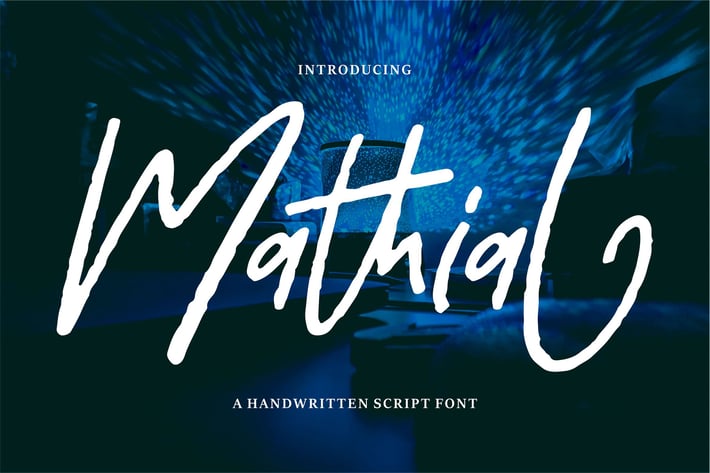
Mathial | A Handwritten Script Font
Mathial | A Handwritten Script Font with a calligraphy style, So beautiful on invitation like greeting cards, branding materials, business cards, quotes, posters, and more!